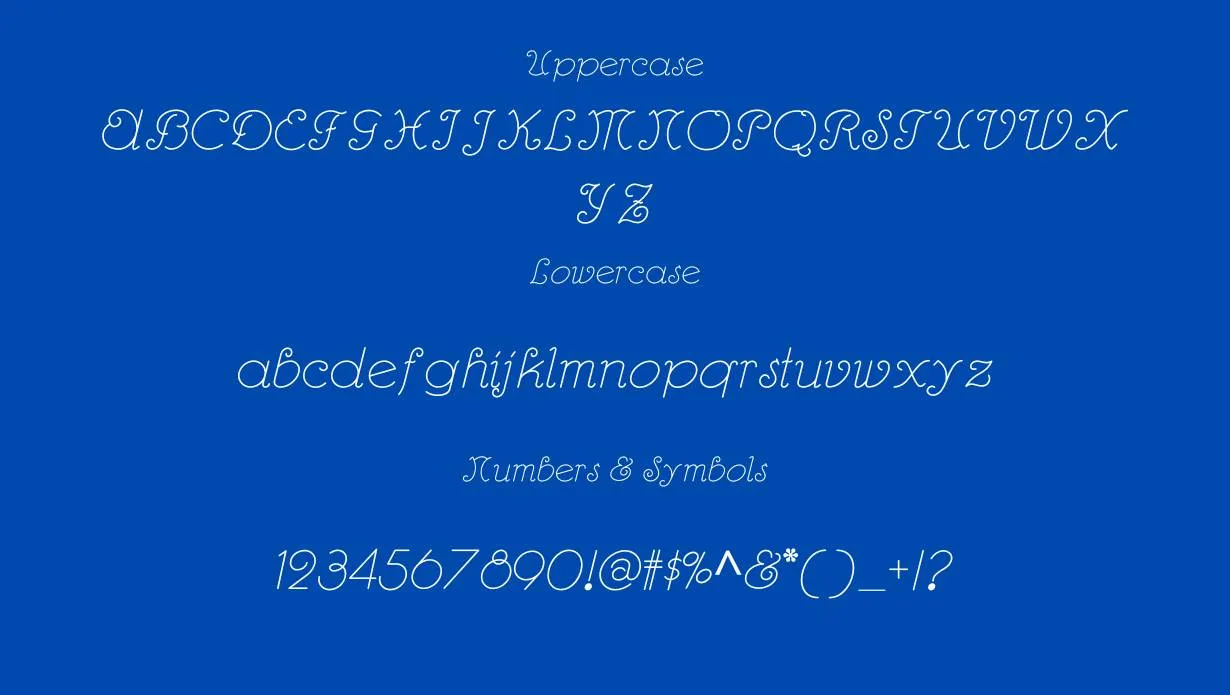
Rhumba Script NF Font feels elegant and graceful. Its flowing, cursive style brings a soft and delicate touch to any text. This font is often seen in designs related to beauty or fashion, as its feminine curves and gentle strokes give a sense of charm and sophistication.
| Name | Rhumba Script NF Font |
| Designer | E. Deutsch |
Whether used in branding or editorial content, this font adds a sense of refinement, making the text appear graceful and inviting. Elevate the aesthetic appeal and precision of your design by pairing the typeface style with other fonts, such as the aurelig vintage script font, available on our website.